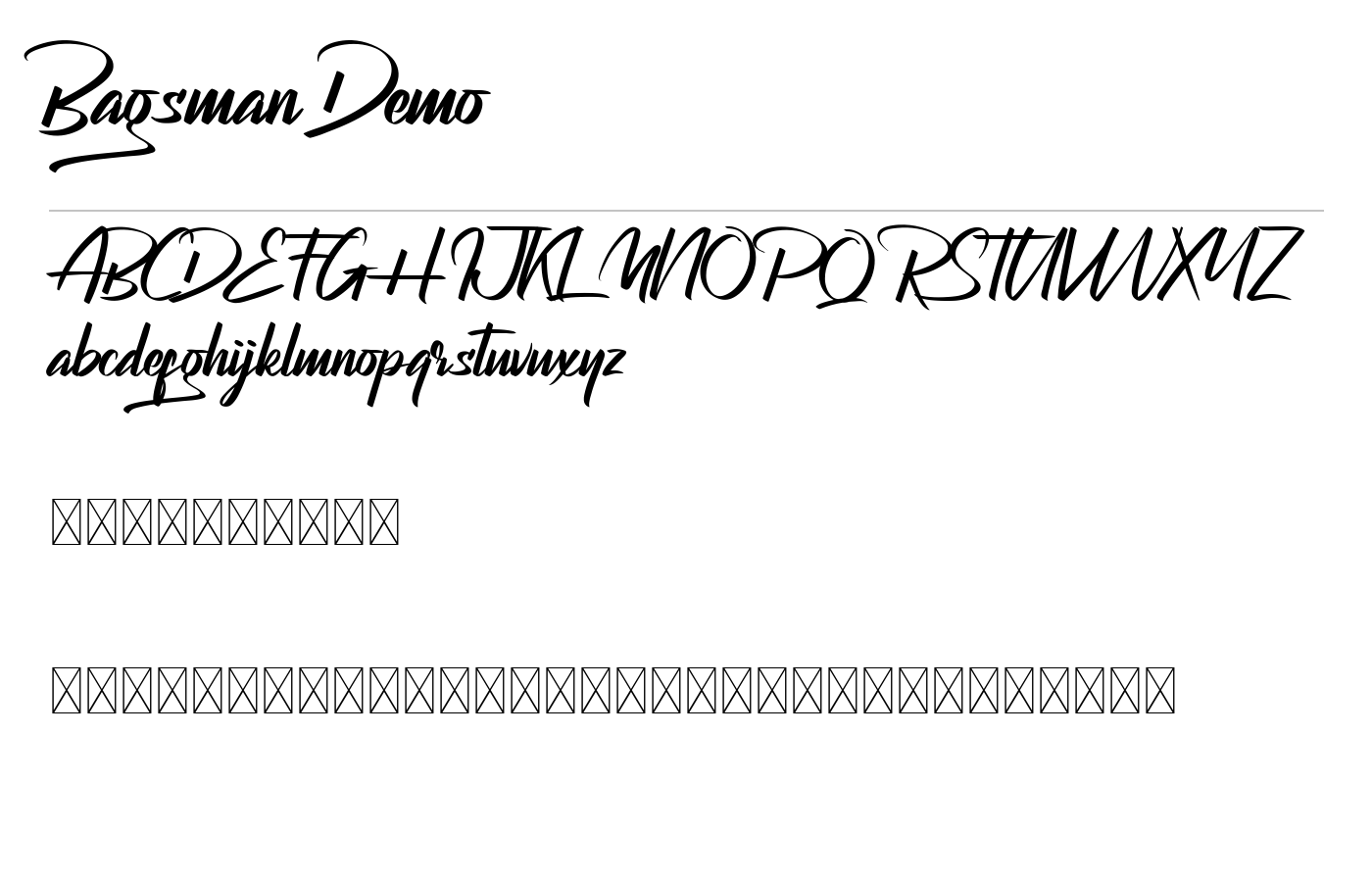
Bagsman Demo is a lively and expressive script font featuring dynamic, brush-like strokes with a hand-drawn feel. Its casual yet elegant style makes it perfect for creative branding, logos, and headlines that seek a personal and artistic touch. This font brings energy and personality to designs, ideal for fashion, lifestyle, and modern editorial projects.
Bagsman Demo Font
About Bagsman Demo Font
| Font family | Bagsman Demo Font |